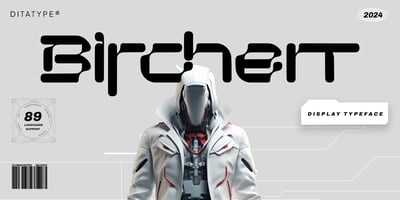
Birchen Font Family was designed by Donis Miftahudin and published by Ditatype. Birchen contains 1 styles and family package options. Birchen embodies the essence of modernity and technological advancement, seamlessly blending futuristic design elements with a sleek tech aesthetic. Designed exclusively in uppercase, each letter maintains consistent proportions, while eschewing clean outlines in favor of a distinctive edginess.Inspired by the minimalist elegance of contemporary technology, Birchen exudes a sense of sophistication and innovation. Its letters possess a subtle yet unmistakable sense of dynamism, as if each curve and angle is meticulously calibrated to perfection.,The font’s design language speaks to the sleek, streamlined aesthetics of cutting-edge design, with precise geometry and sharp angles that evoke a sense of precision engineering. In addition, enjoy the features here.Features: Ligatures Stylistic Sets Multilingual Supports PUA Encoded Numerals and Punctuations Birchen fits in headlines, logos, posters, flyers, branding materials, greeting cards, print media, editorial layouts, and many more designs. Find out more ways to use this font by taking a look at the font preview.Thanks for purchasing our fonts. Hopefully, you have a great time using our font. Feel free to contact us anytime for further information or when you have trouble with the font. Thanks a lot and happy designing.